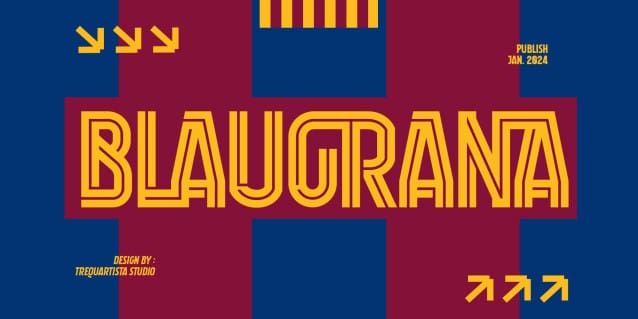
Blaugrana Display Font
Blaugrana Display Font, This typeface has a clean and athletic look, glyphs and extensive Latin script support. Blaugrana is tall, vibrant with sharp sans serifs and competitive appearance, therefore excellent to use for headers, logos, captions and posters, especially for the sports branding industry, but just as good for any other projects.